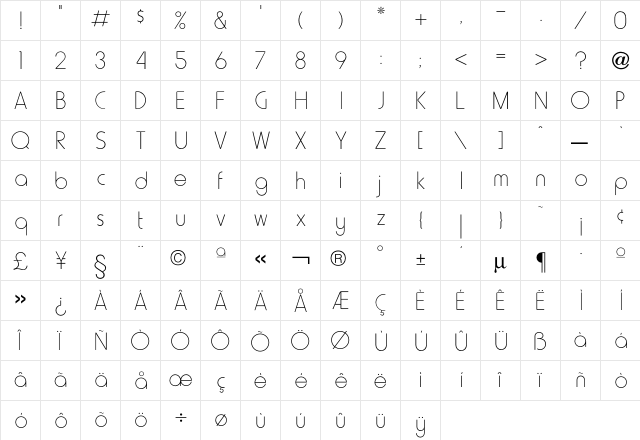
Harry Thin Font Preview
Harry Thin
Harry Thin Font Details
Design Context for Harry Typeface
Harry takes a measured approach to typography — its balanced proportions and neutral character make it a reliable workhorse for both digital and print work. The delicate stroke weight brings airiness and refinement to layouts.